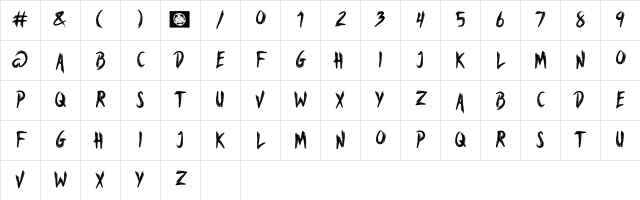
A Voice Liberty Regular Free Font
A Voice Liberty Regular
A Voice Liberty Family
Design Context for A Voice Liberty
A Voice Liberty is a composed and adaptable typeface that performs quietly and consistently across a wide range of design contexts.